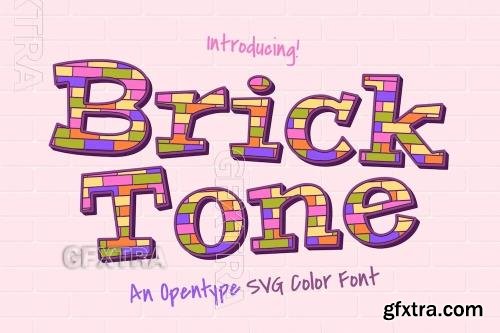
Brick Tone font
Brick Tones is a bold, cartoon-inspired font with an urban edge. Its blocky, brick-like shapes and playful curves create a fun yet strong aesthetic, perfect for street art, comics, and dynamic branding. With a mix of city grit and animated charm, Brick Tones brings energy and personality to any design, making every word stand out with a lively, creative vibe.